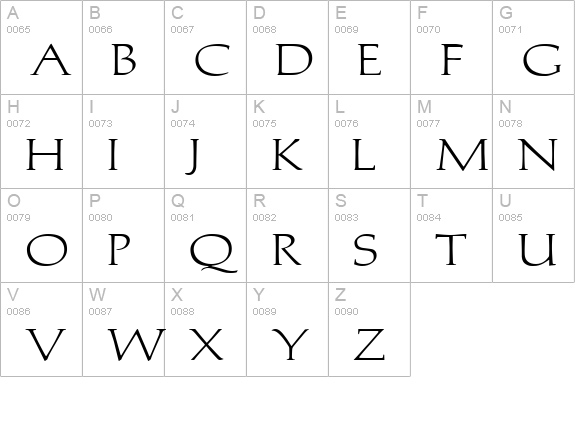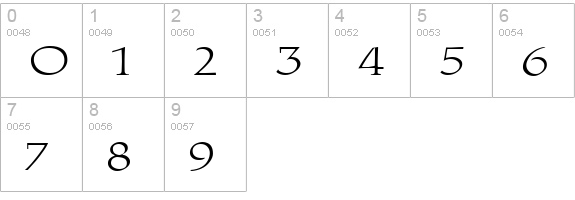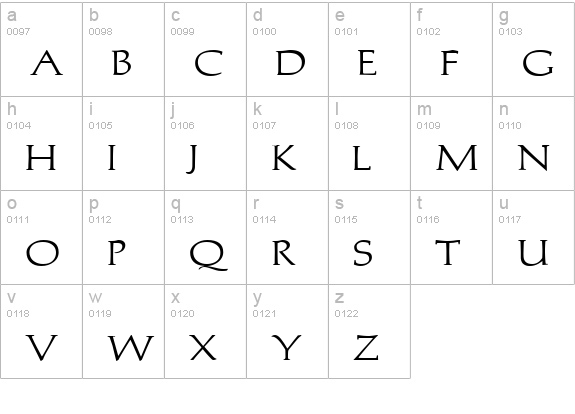
Trajan'sCapsExtended Normal Font Details
Trajan'sCapsExtended Normal is the standard, neutral variant in the Trajan'sCapsExtended typeface family \xE2\x80\x94 well suited to general body text, paragraphs, and standard typographic work.
Trajan'sCapsExtended Normal font is a timeless and elegant typeface that exudes sophistication and refinement. With its bold and commanding presence, this font is perfect for titles, headlines, and any other design element that demands attention. The Trajan'sCapsExtended Normal font effortlessly combines the classical elements of ancient Roman letterforms with a modern twist, resulting in a truly unique and versatile typeface. Its clean lines and balanced proportions make it highly legible, ensuring maximum readability across various sizes and mediums. Whether you're working on print materials, digital designs, or branding projects, Trajan'sCapsExtended Normal font will add a touch of elegance and professionalism to your work. Its versatility allows it to seamlessly blend with both traditional and contemporary design styles, making it a go-to choice for designers across the globe. One of the best things about Trajan'sCapsExtended Normal font is that it is available for free download at FontsMarket.com. This means that you can easily access and utilize this remarkable font in your projects without any cost. FontsMarket.com is a trusted source for high-quality fonts, and their wide selection ensures that you will find the perfect font for your needs. Don't miss out on the opportunity to enhance your designs with the timeless beauty of Trajan'sCapsExtended Normal font. Download it for free at FontsMarket.com and let your creativity soar.